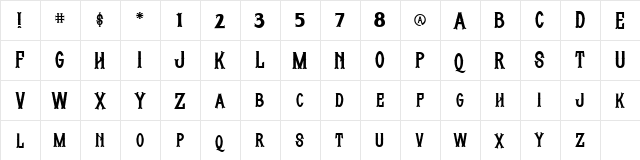
Whisholder Regular
| Foundry | Creatype Studio Co. |
| Designer | Rian Rahardi |
Design Context for Whisholder Typeface
Whisholder takes a measured approach to typography — its balanced proportions and neutral character make it a reliable workhorse for both digital and print work.